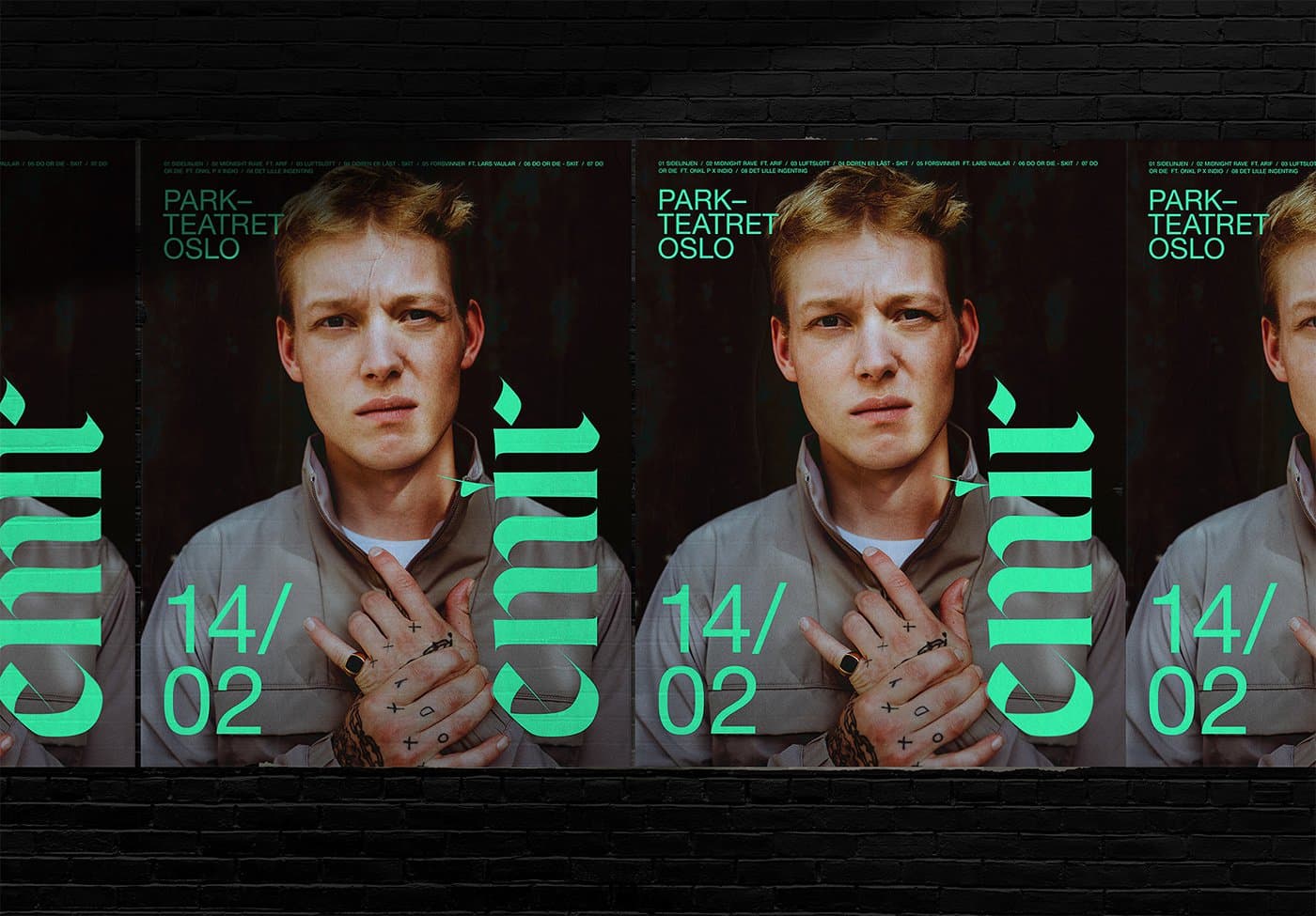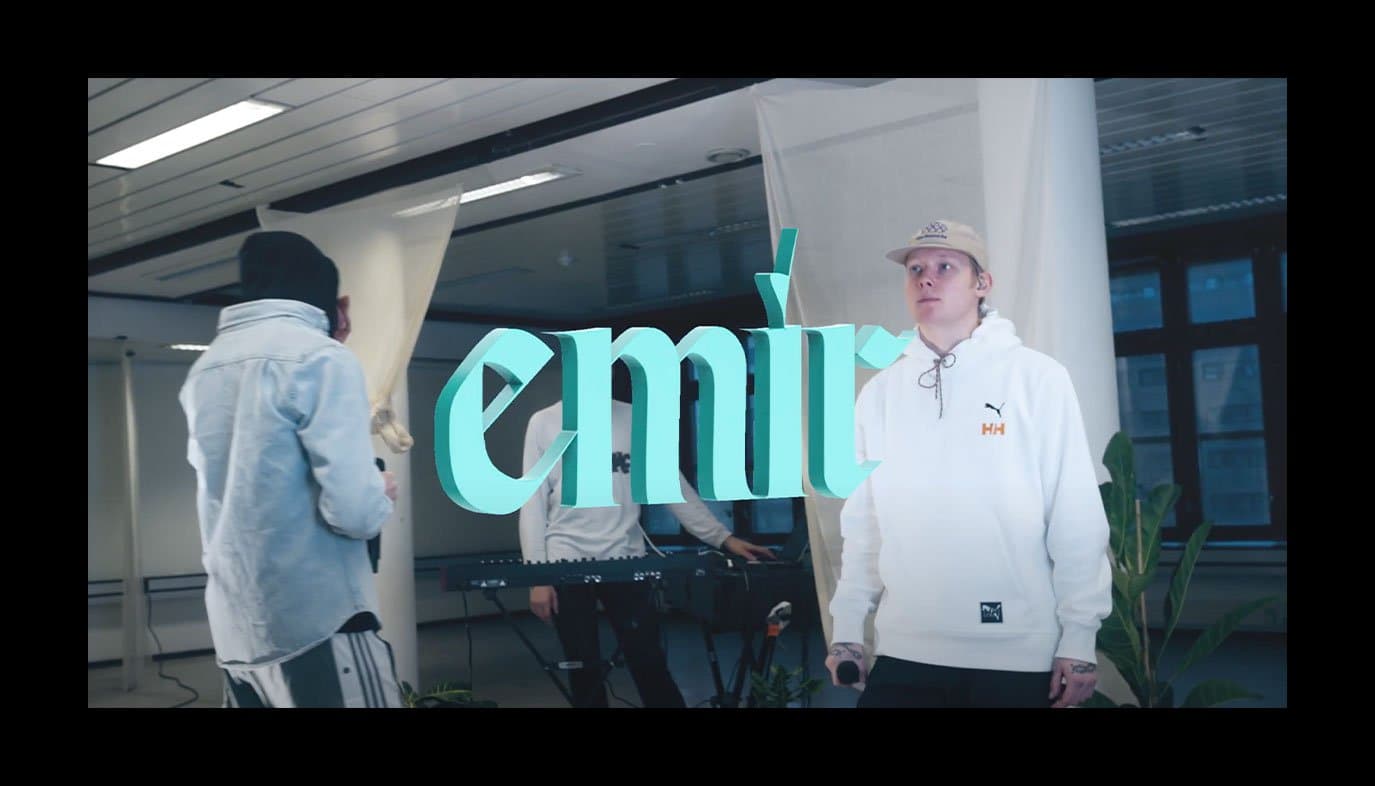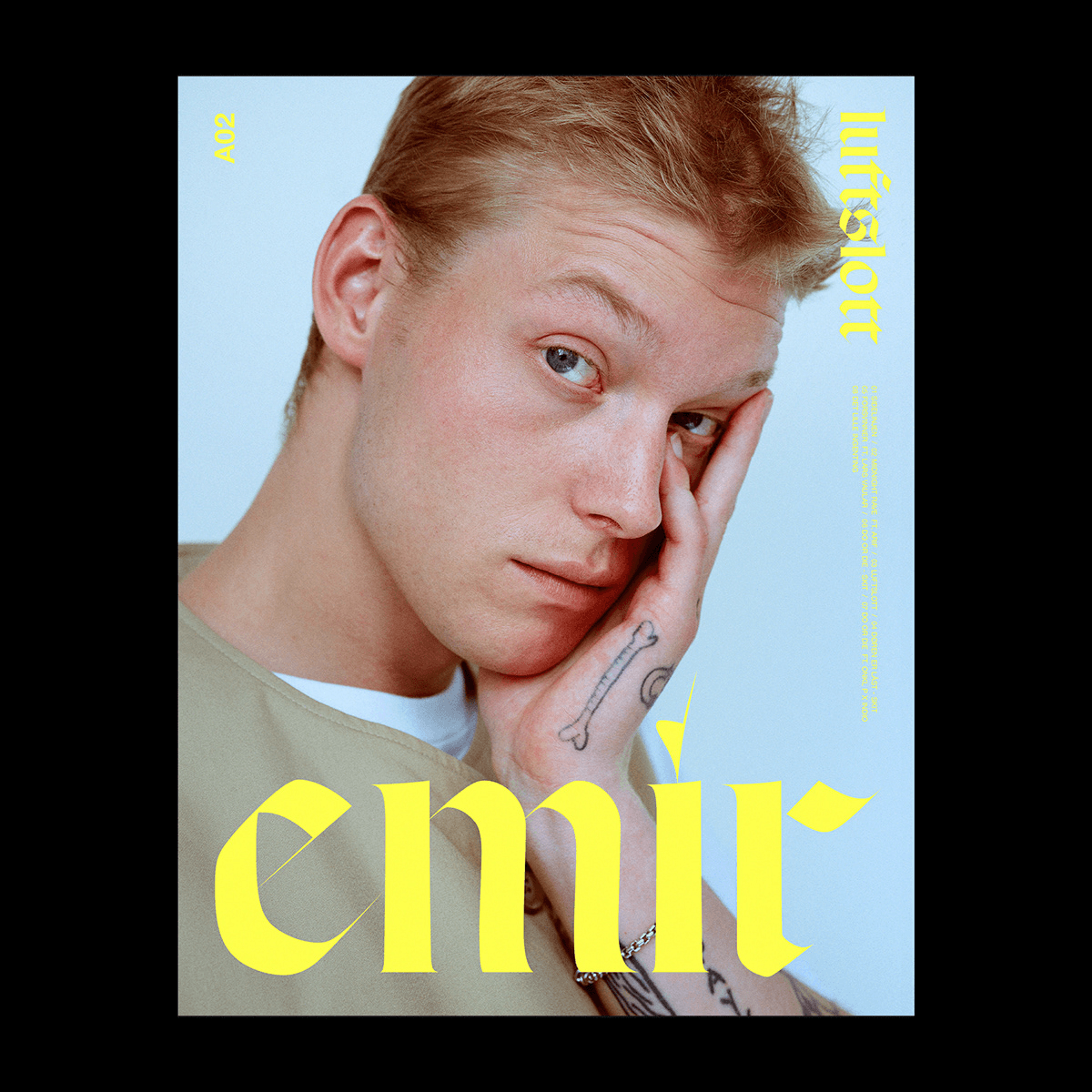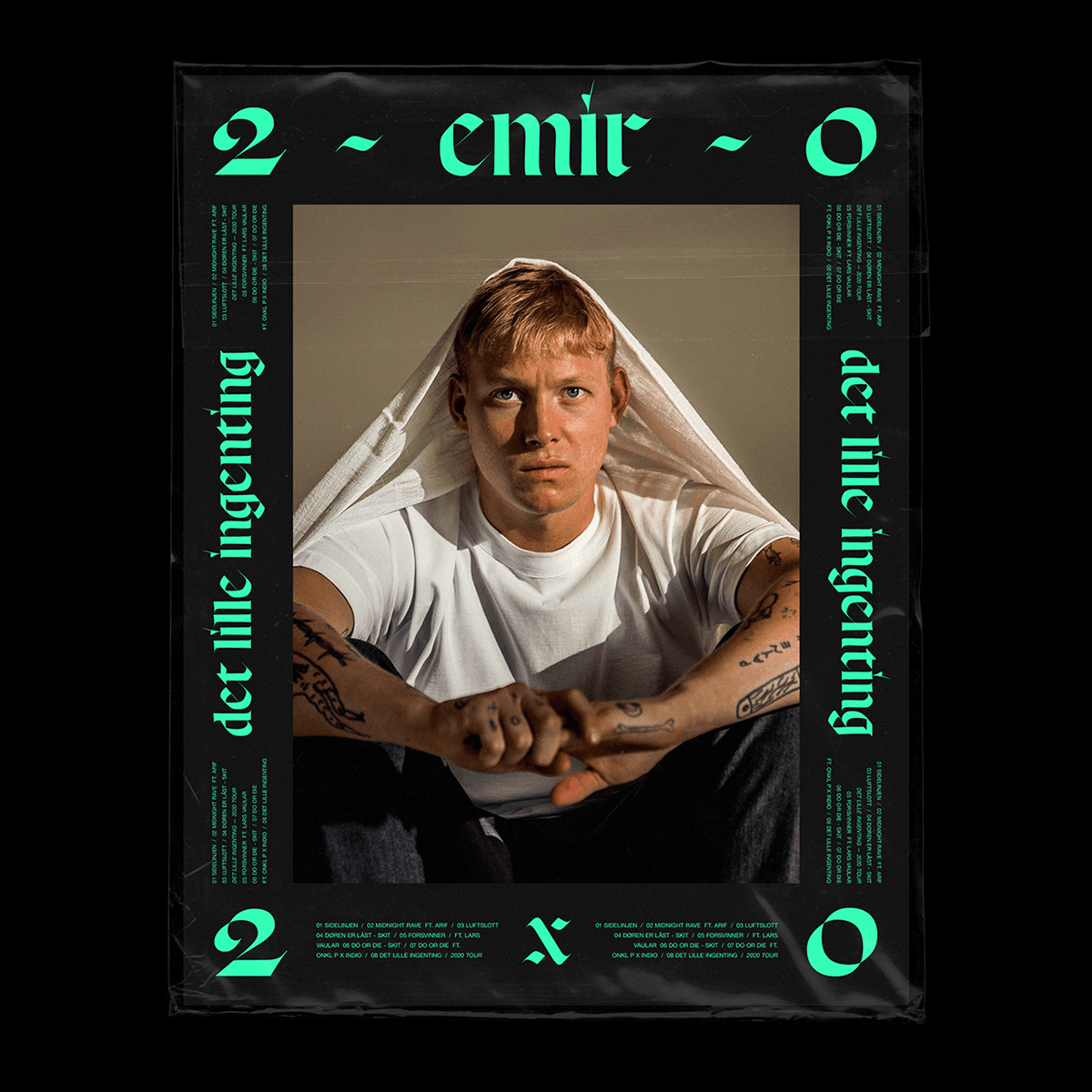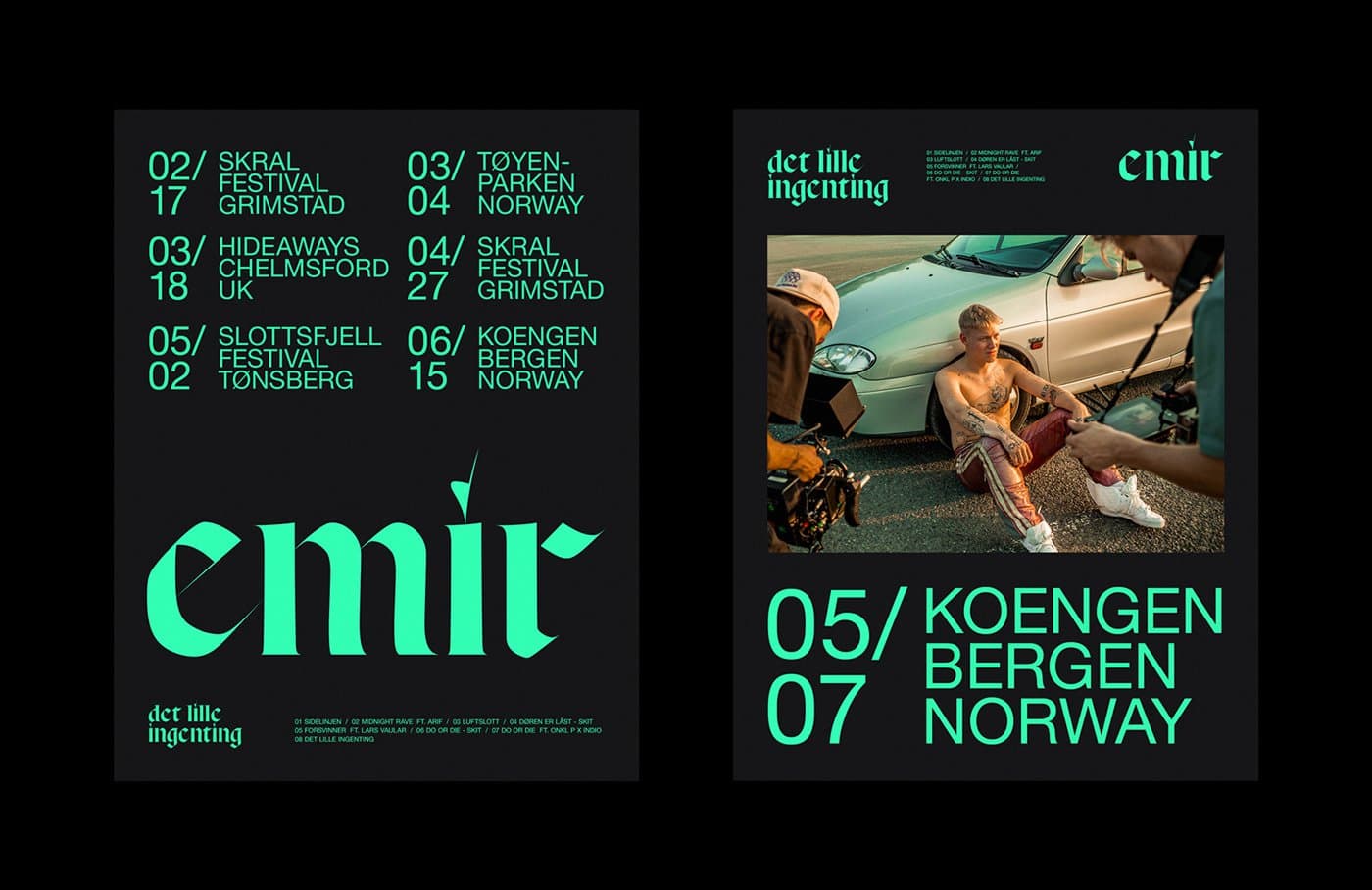
EMIR & Respira Black
New York-based designer Erik Herrström teamed up with Sony Music Norway to rebrand the identity for Norwegian Grammy Award-winning artist EMIR. The new logo uses Respira Black and the typeface is used on album artwork for ‘Det Lille Ingenting’, three singles music videos, and tour merchandise.
On designing the identity for the pop and rap artist, Herrström said, “The gothic typography is unusually set entirely in lowercase, adding a slightly more human feel to a typeface from a category that typically has a more aggressive tone.”
Typeface: Respira Black